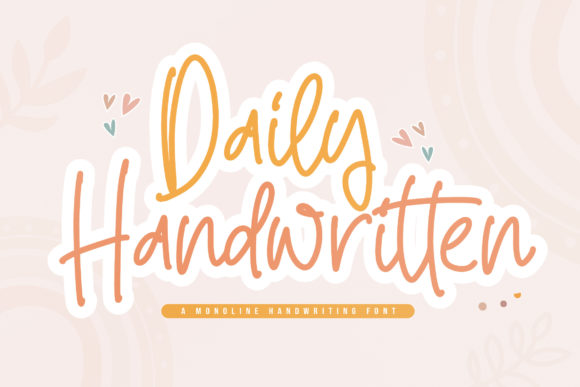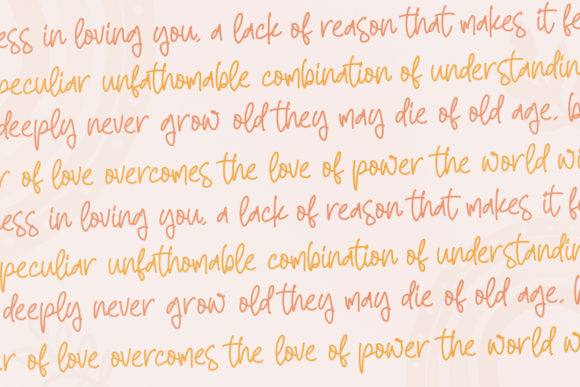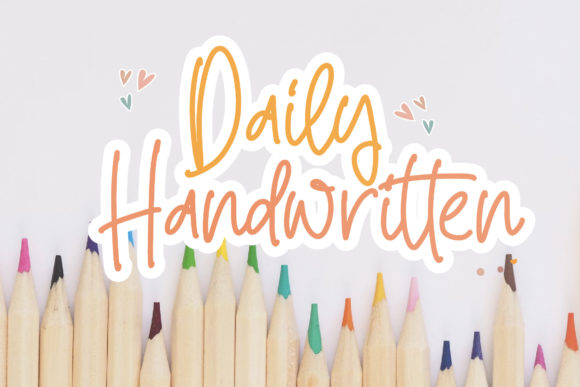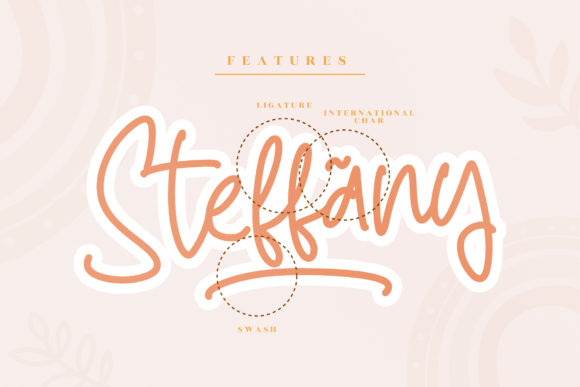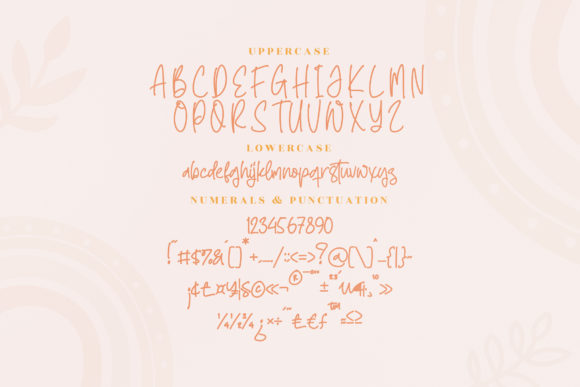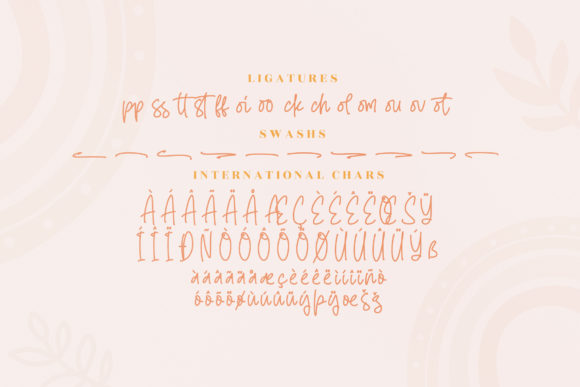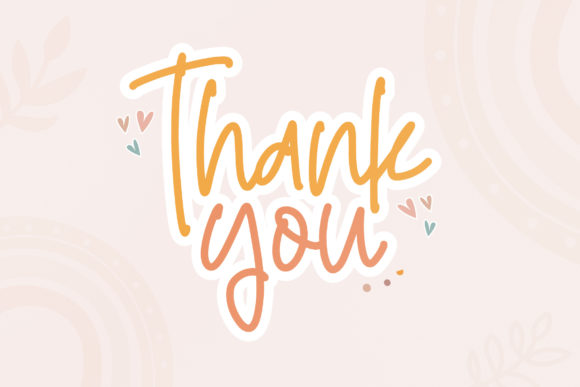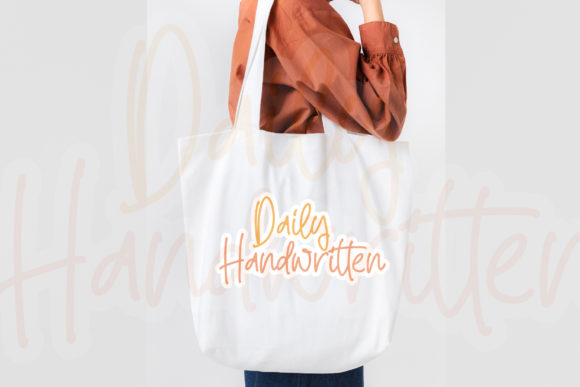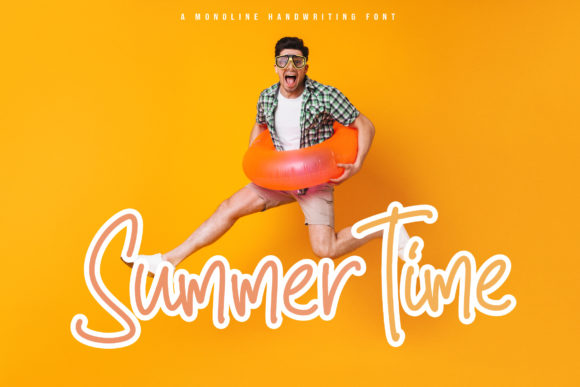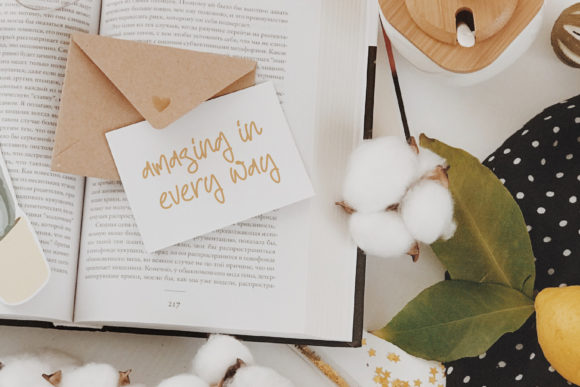
Daily Font
About Daily Font
Daily is a quirky and casual handwritten font characterized by its thin lettering, adding a playful and lighthearted touch to your designs. This font is crafted to bring a sense of informality and creativity to your projects, making it suitable for a variety of applications.
The thin lettering of Daily contributes to its casual and laid-back aesthetic, making it an excellent choice for projects where a relaxed and friendly vibe is desired. Whether used in social media graphics, blog posts, branding, or other design endeavors, Daily adds a touch of quirkiness and individuality.
One notable feature of Daily is its PUA encoding, allowing easy access to all glyphs and swashes. This feature enhances the font’s versatility, enabling designers to customize and personalize their projects with various character options and decorative elements.
With its handwritten charm and playful demeanor, Daily stands out as a font that goes beyond conventional styles. It brings a sense of creativity and authenticity to your designs, making it an ideal choice for those seeking a font that reflects a casual and approachable aesthetic.
In conclusion, Daily is not just a font; it’s a tool that facilitates a quirky and personalized typographic expression. Its thin lettering, casual handwritten style, and PUA encoding make it a versatile and fun choice for designers looking to inject a sense of individuality and informality into their creative projects.